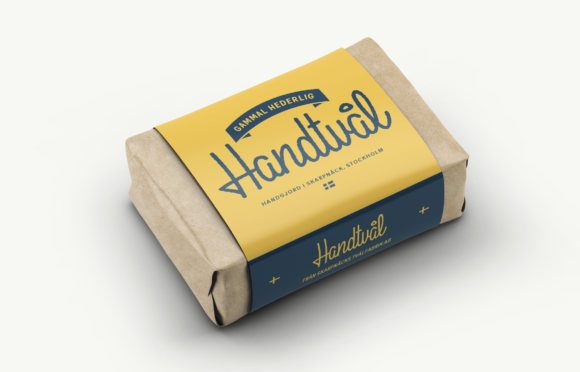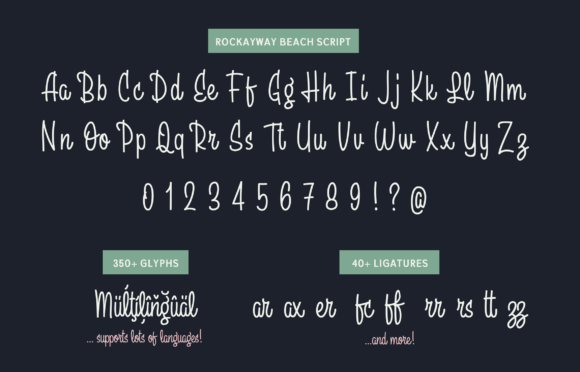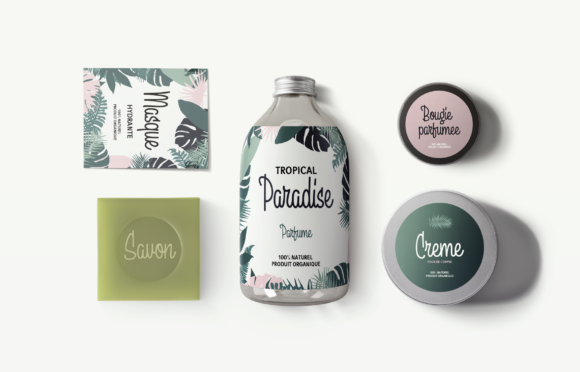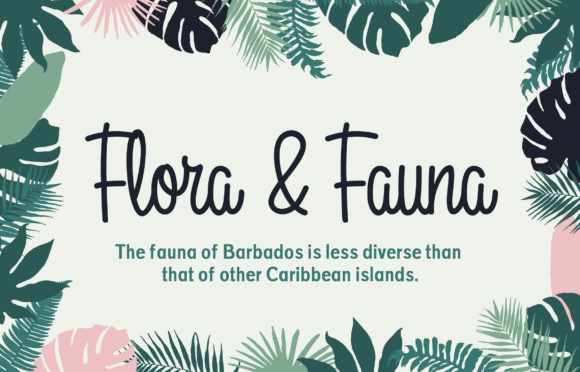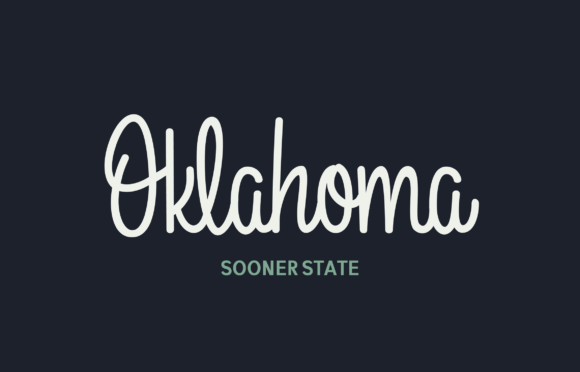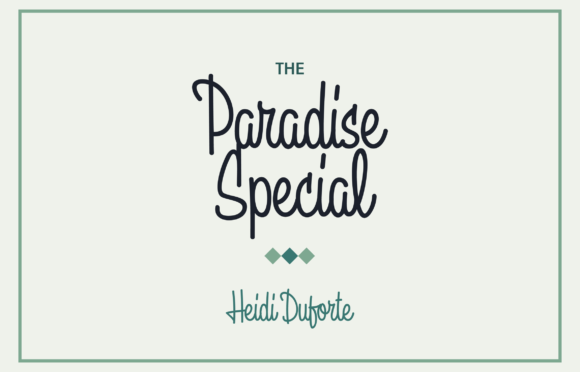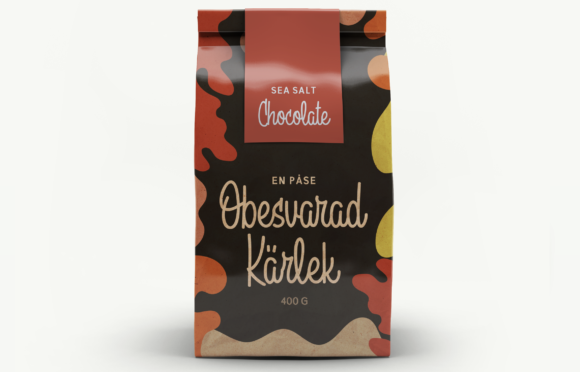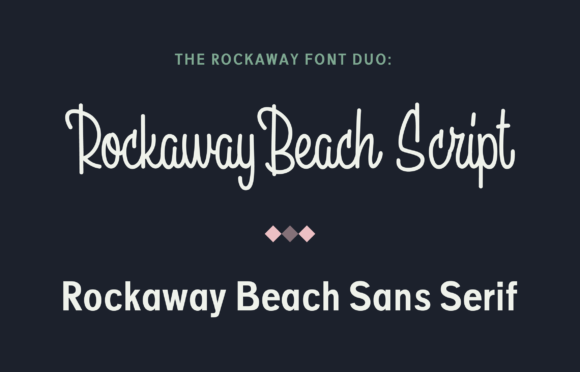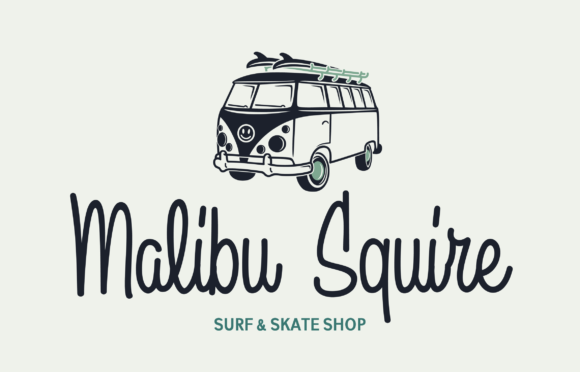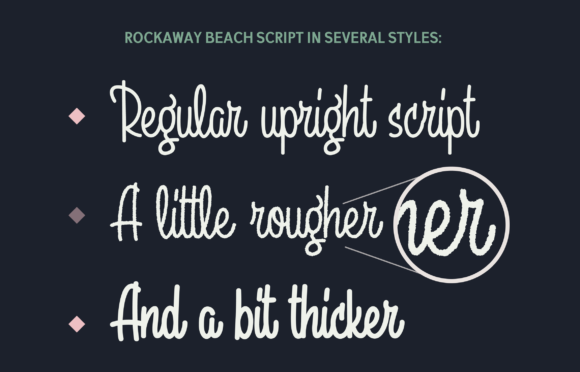
Rockaway Beach Font
About Rockaway Beach Font
Rockaway Beach is a gorgeous and relaxed script font, perfect for giving your designs a friendly appeal! This upright, soft vintage font is crafted as a monoline so your designs have a sleek feel without compromising on style.